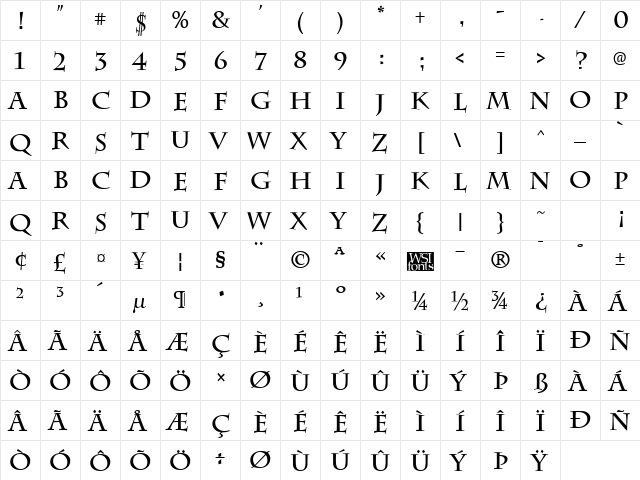
Chattsworth Bold
Design Context for Chattsworth Typeface
Chattsworth takes a measured approach to typography — its balanced proportions and neutral character make it a reliable workhorse for both digital and print work. The heavy weight commands attention and anchors typographic hierarchies.